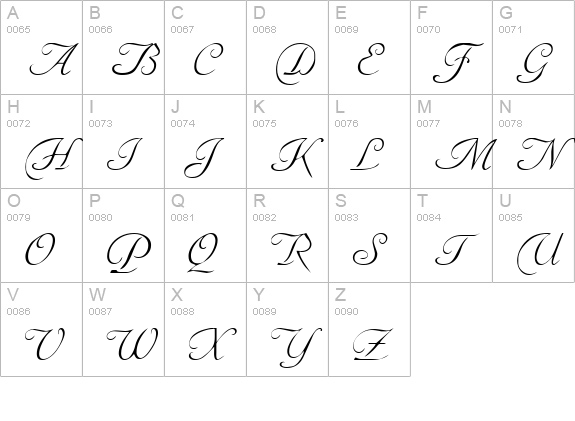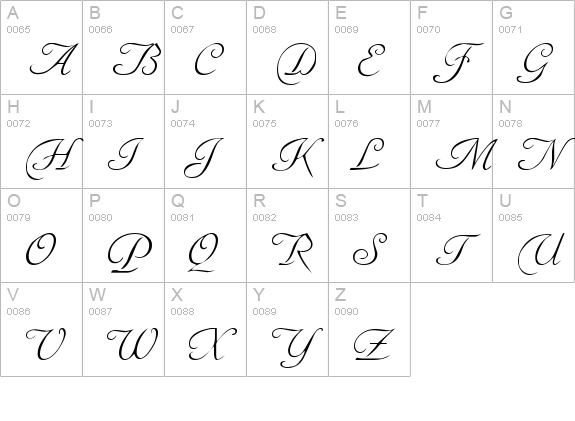
Anedocte Caps Font Details
Introducing Anedocte Caps font, a unique and eye-catching typeface that is sure to make your designs stand out. With its bold and distinctive letterforms, Anedocte Caps is perfect for creating attention-grabbing headlines, logos, and more. This versatile font exudes a sense of modernity and sophistication, making it ideal for a wide range of design projects. What's even better is that Anedocte Caps font is completely free for personal and commercial use. You can download this stylish font at FontsMarket.com and start incorporating it into your designs today. Don't miss out on the opportunity to add a touch of elegance and flair to your projects with Anedocte Caps font.